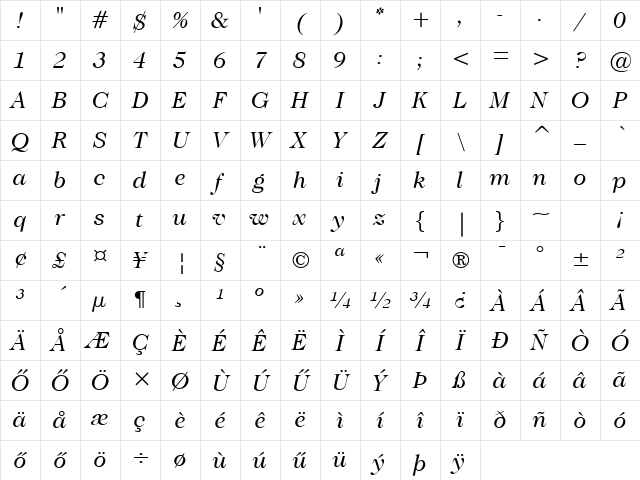
CaslonNo.224 BkHU Book Italic
Style: Book Italic
Design Context for CaslonNo.224 BkHU
CaslonNo.224 BkHU is a composed and adaptable typeface that performs quietly and consistently across a wide range of design contexts. The slanted form adds forward momentum and visual energy.
Pro Tip: Use CaslonNo.224 BkHU for emphasis, pull quotes, and subheadings where its slanted energy can add rhythm to the layout.